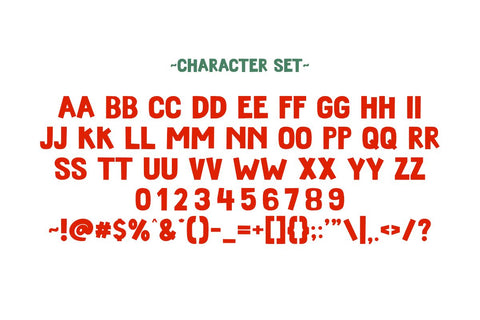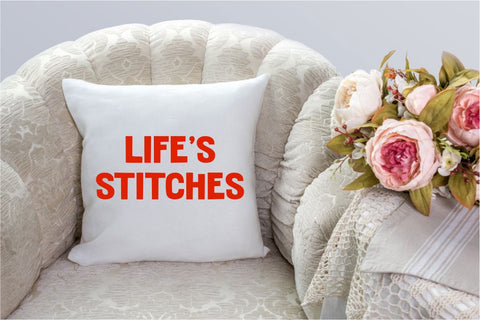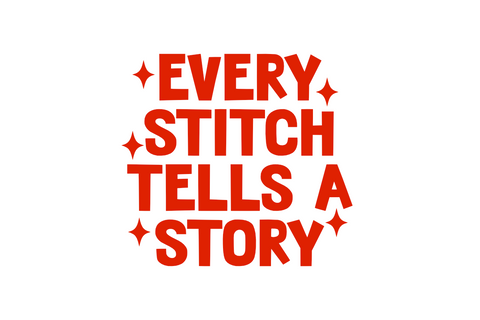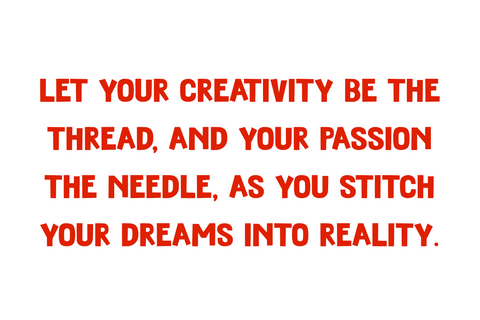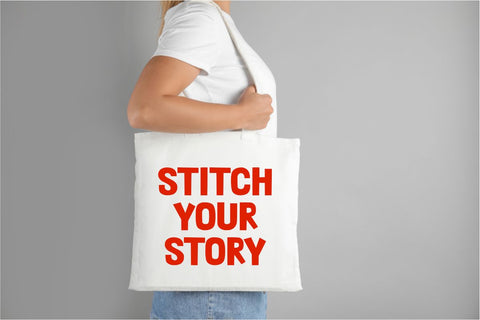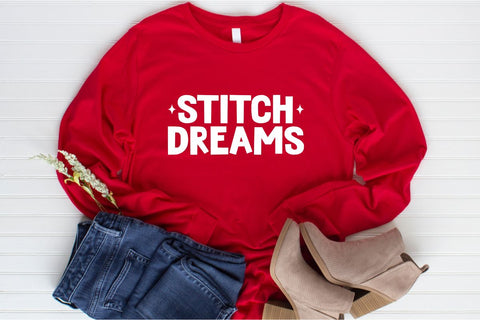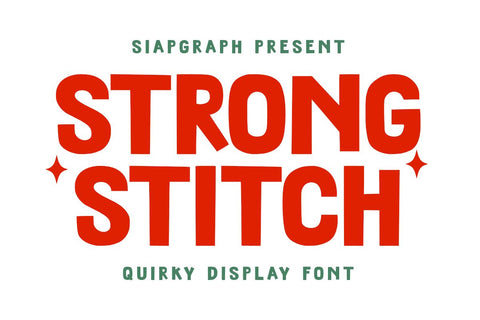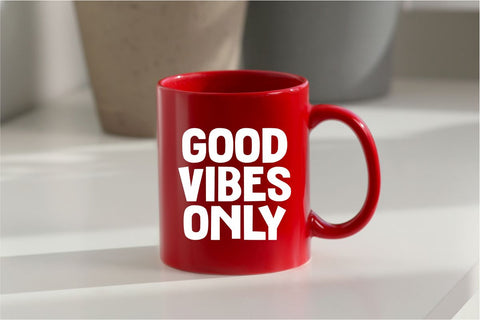
Strong Stitch - Quirky Display Font
Strong Stitch is a bold and quirky display font designed to bring energy and personality to your projects. With its playful letterforms and strong presence, this font is perfect for branding, posters, packaging, apparel, logos, and more. Whether you're looking to create eye-catching headlines or fun and unique typography, Strong Stitch will add a touch of creativity to your designs.